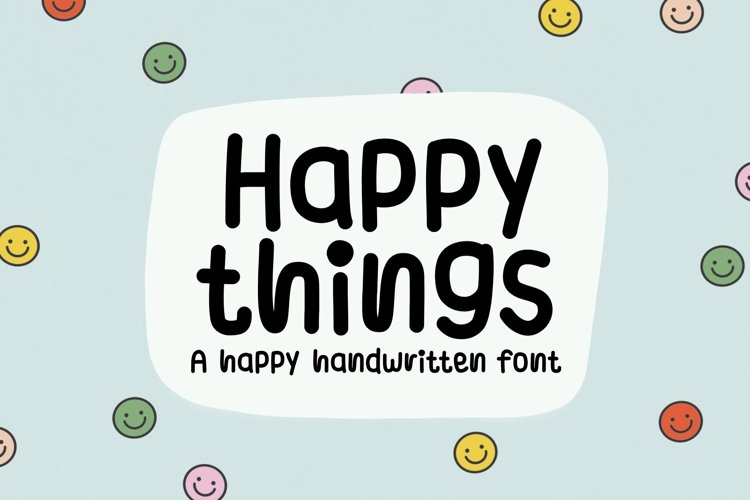
Happy things is a simple and cute handwritten font. This font includes English characters, numbers, standard punctuations. You can use this font in various projects -- blog posts, logos, invitations, greeting cards, digital planners, study note, decorations and much more!